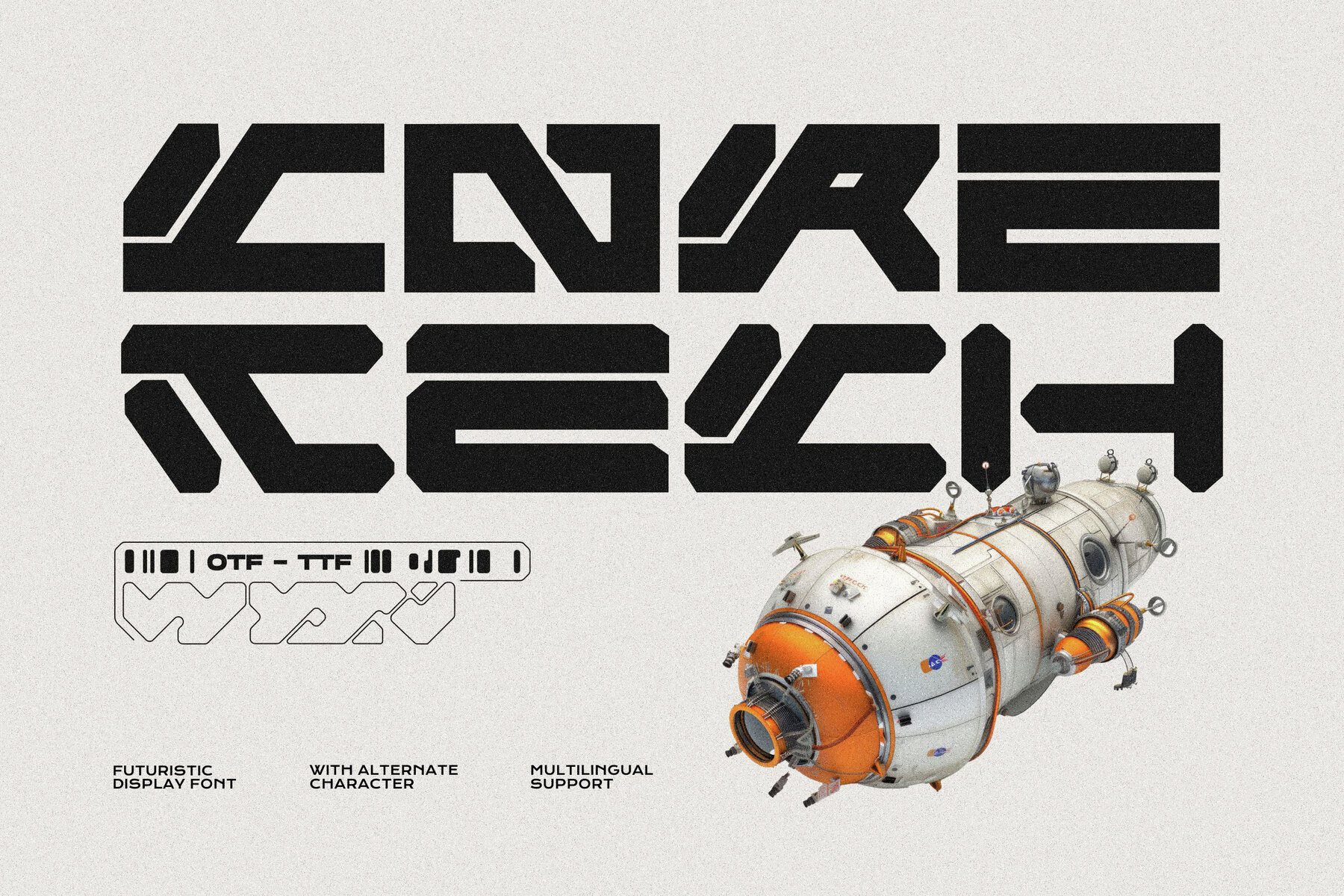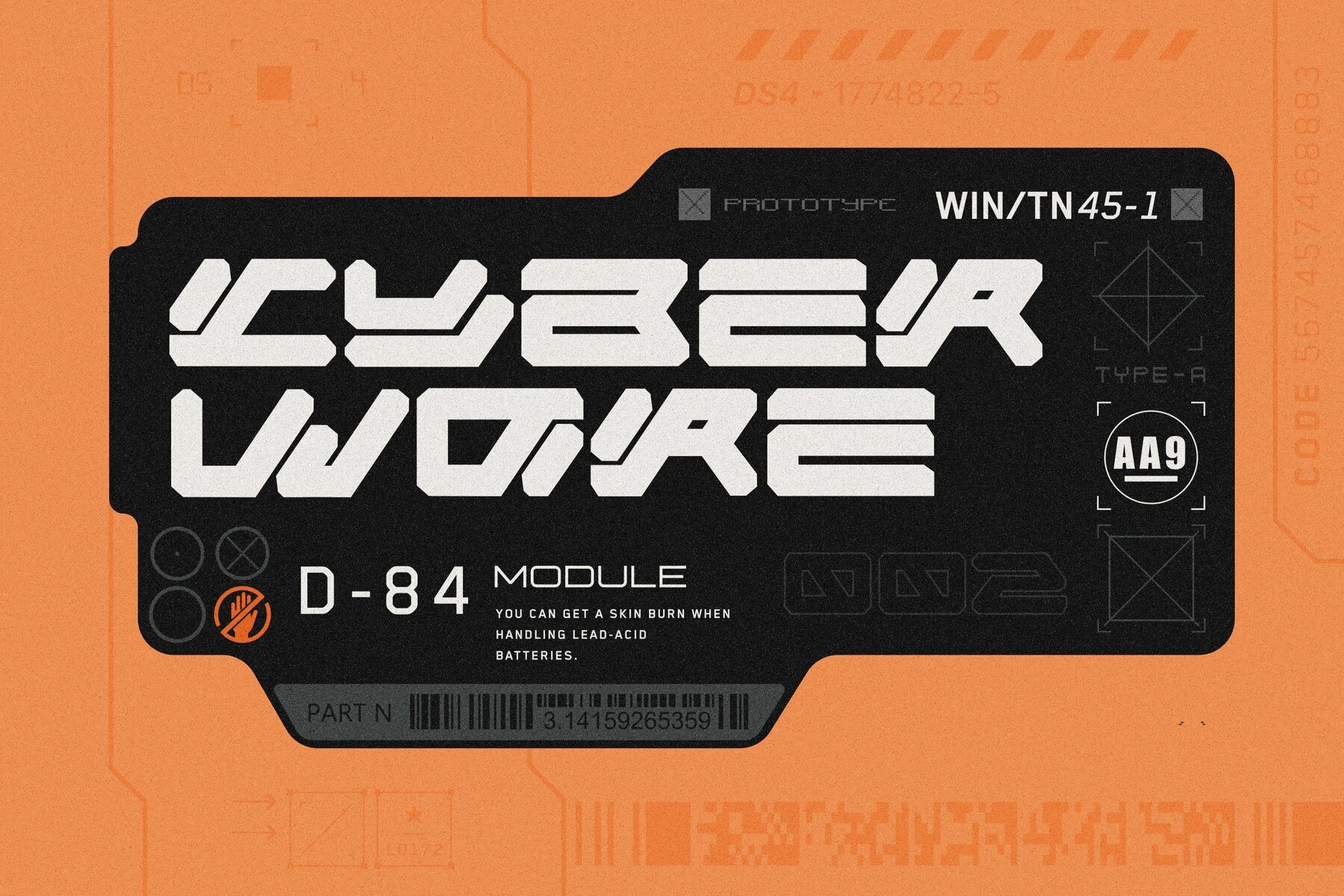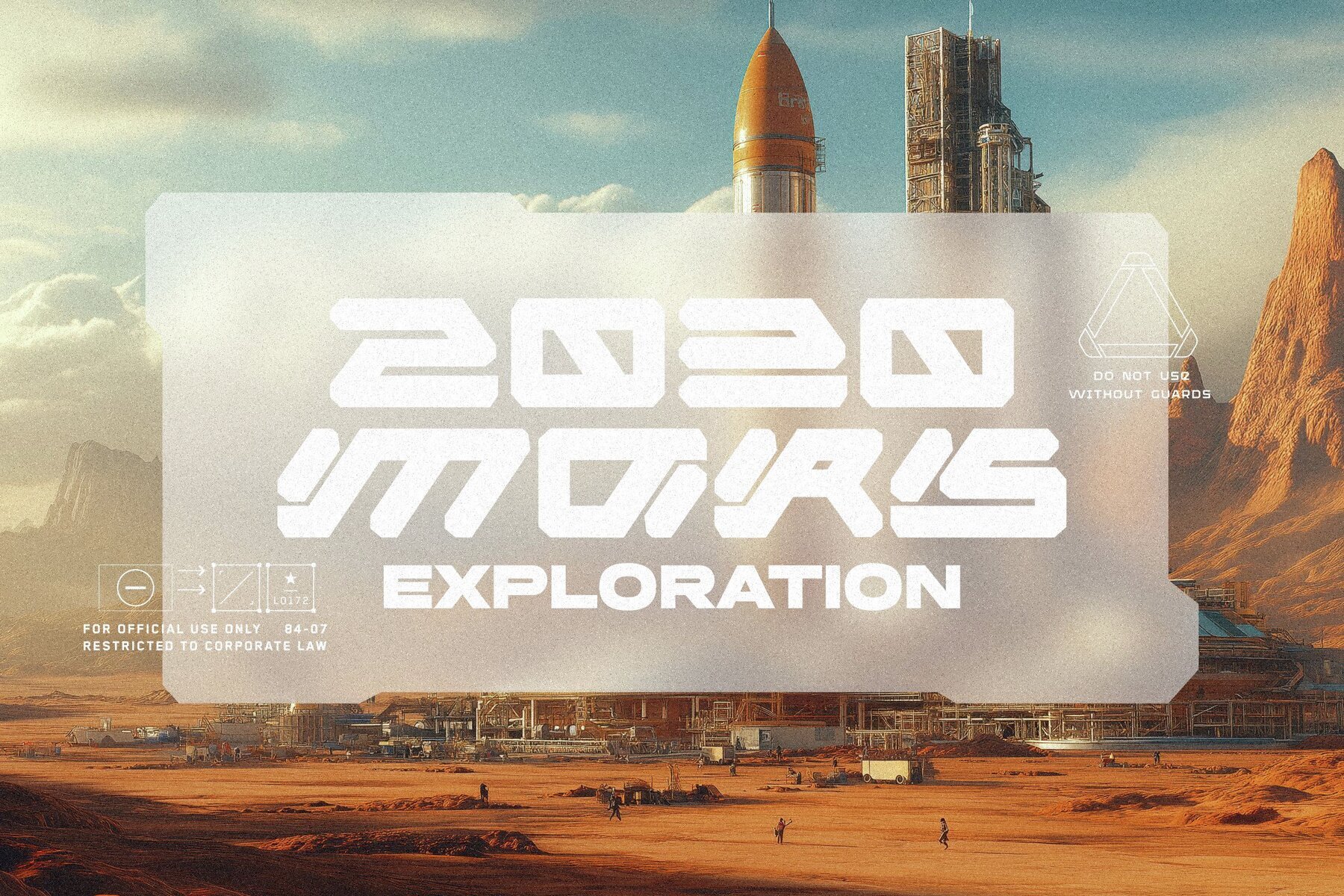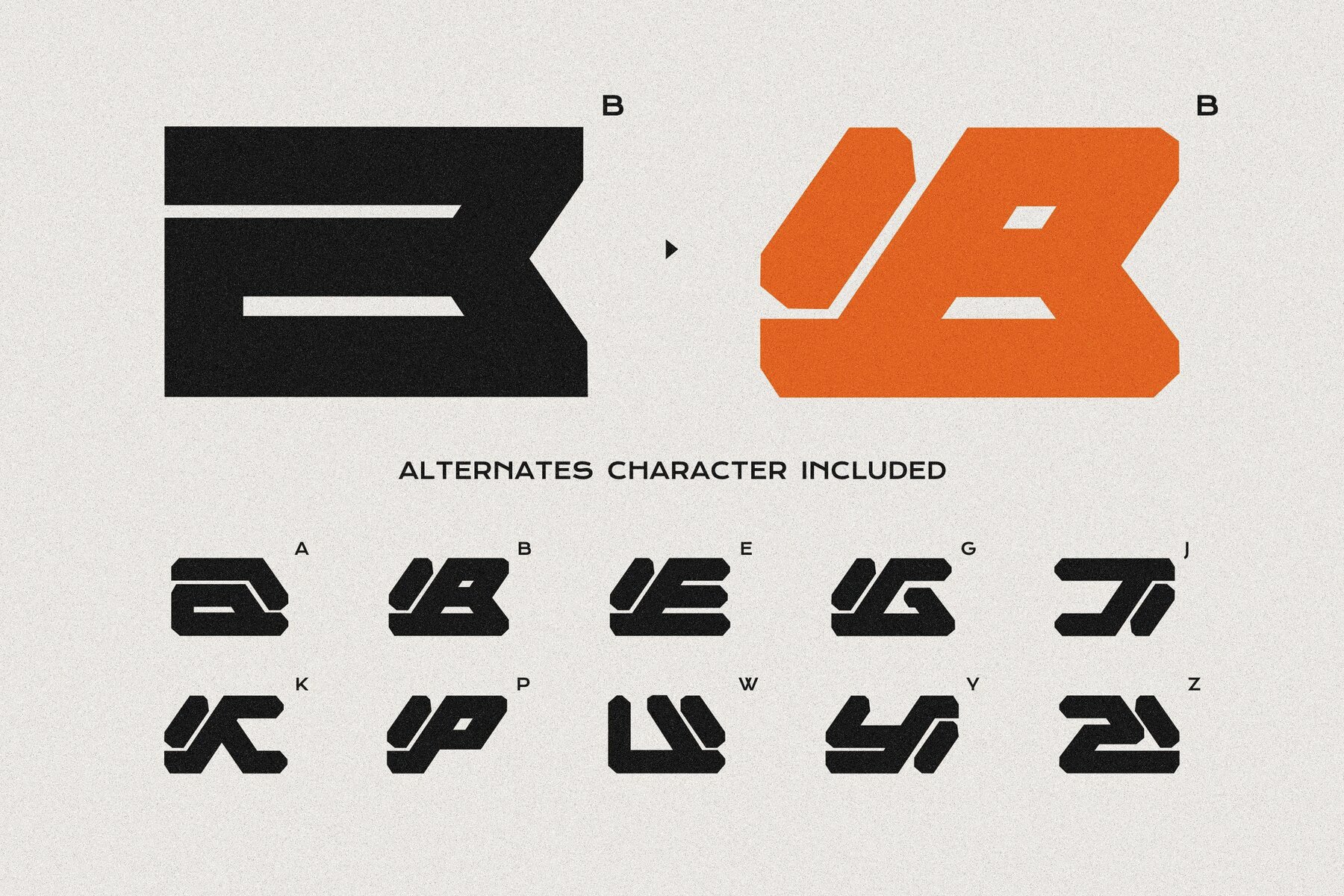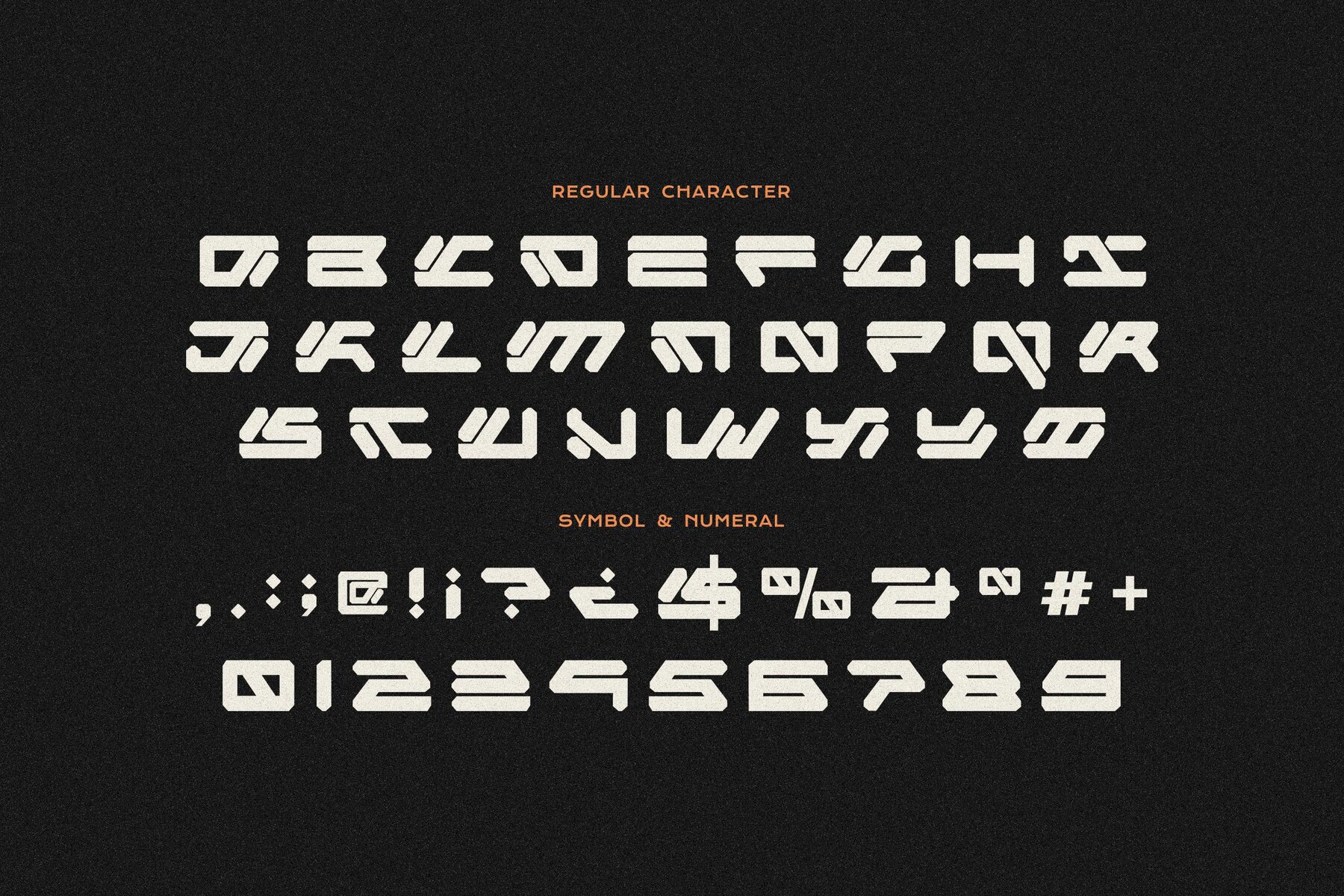
Core Tech Font
Core Tech Regular
Core Tech offers a bold approach to contemporary typography, blending geometric precision with sharp-edged forms and distinctive stencil-style cuts. Inspired by cyberpunk and modular design, this typeface brings a structured, mechanical sensibility to any project seeking a high-tech aesthetic. Its assertive character stands out in both print and digital environments, making it a prime choice for designers who value clarity and modernity. This font includes a set of alternate characters, enabling easy customization. Switch between standard and slanted versions to introduce motion and energy, allowing your designs to adapt to a variety of visual needs. Whether you're building a tech brand, designing game visuals, or working on science fiction media, Core Tech's flexibility ensures your work remains original and memorable.Futuristic Display Typeface for Tech-Driven Design